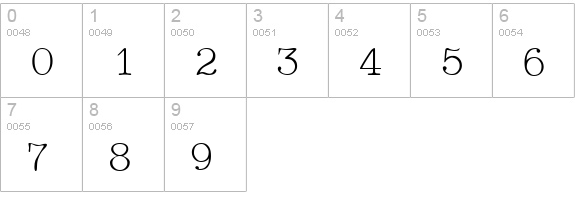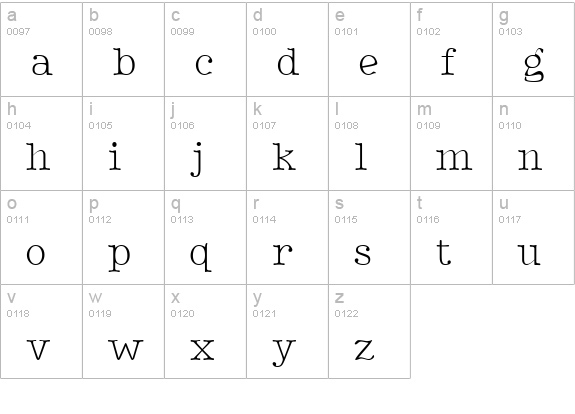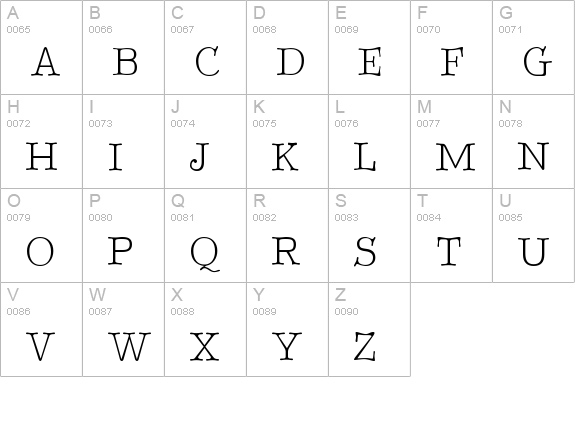
BetterTypeRightThin Font Details
BetterTypeRightThin font is a sleek and modern typeface that exudes elegance and sophistication. Its thin and delicate letterforms make it perfect for adding a touch of refinement to your designs. This font is ideal for creating stylish logos, branding materials, invitations, and more. One of the best things about BetterTypeRightThin font is that it is completely free to download. You can easily access this font at FontsMarket.com and start using it in your projects right away. With its clean lines and contemporary look, BetterTypeRightThin font is sure to elevate your designs to the next level.